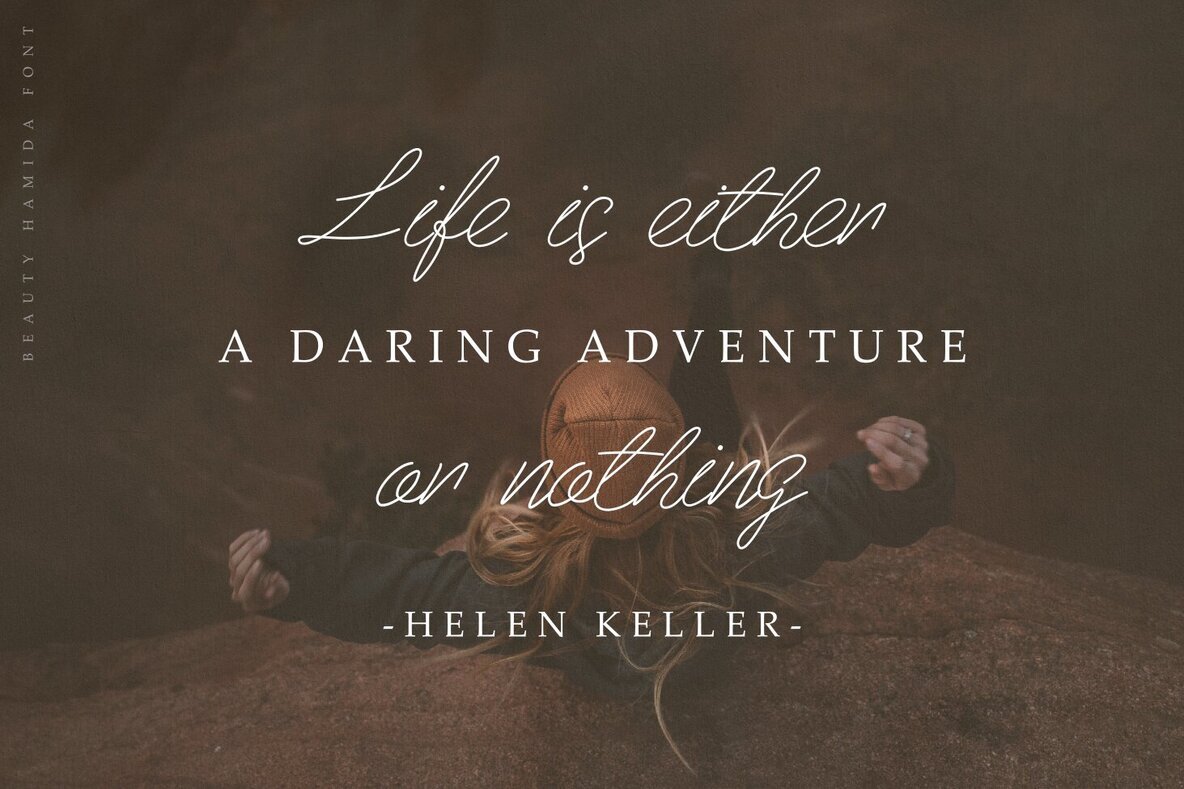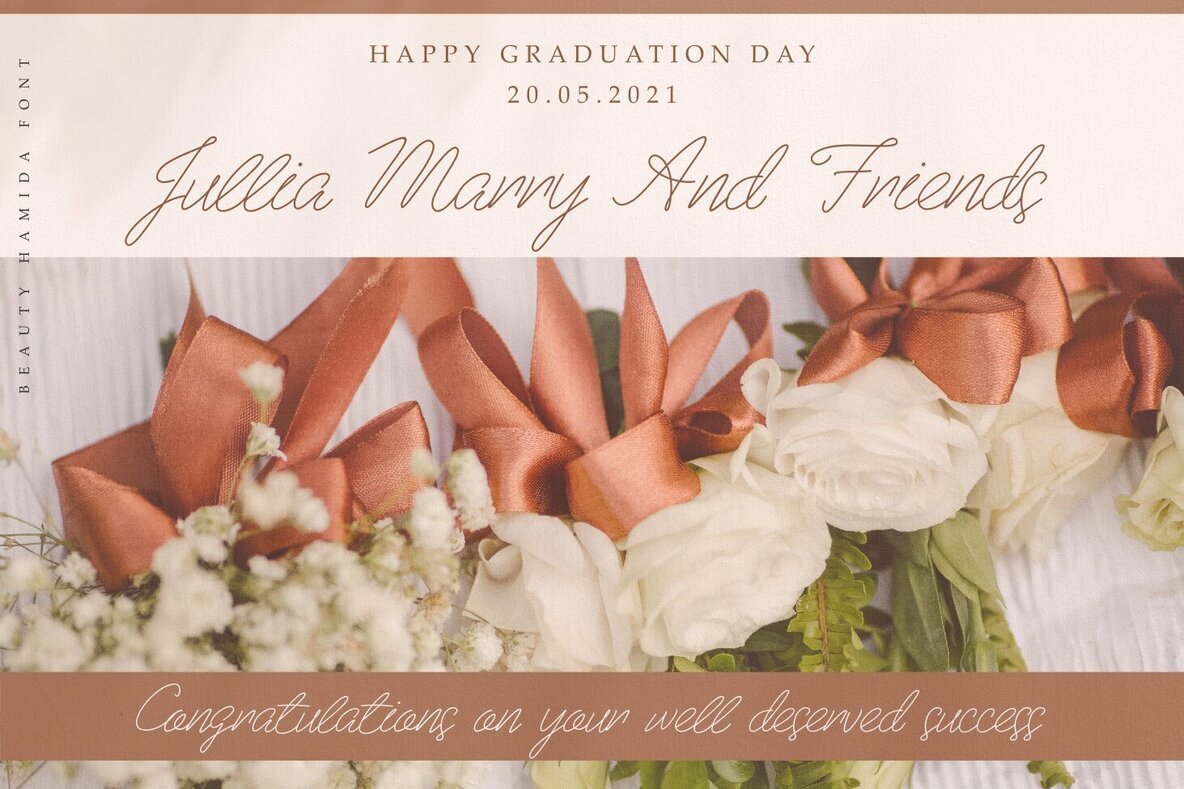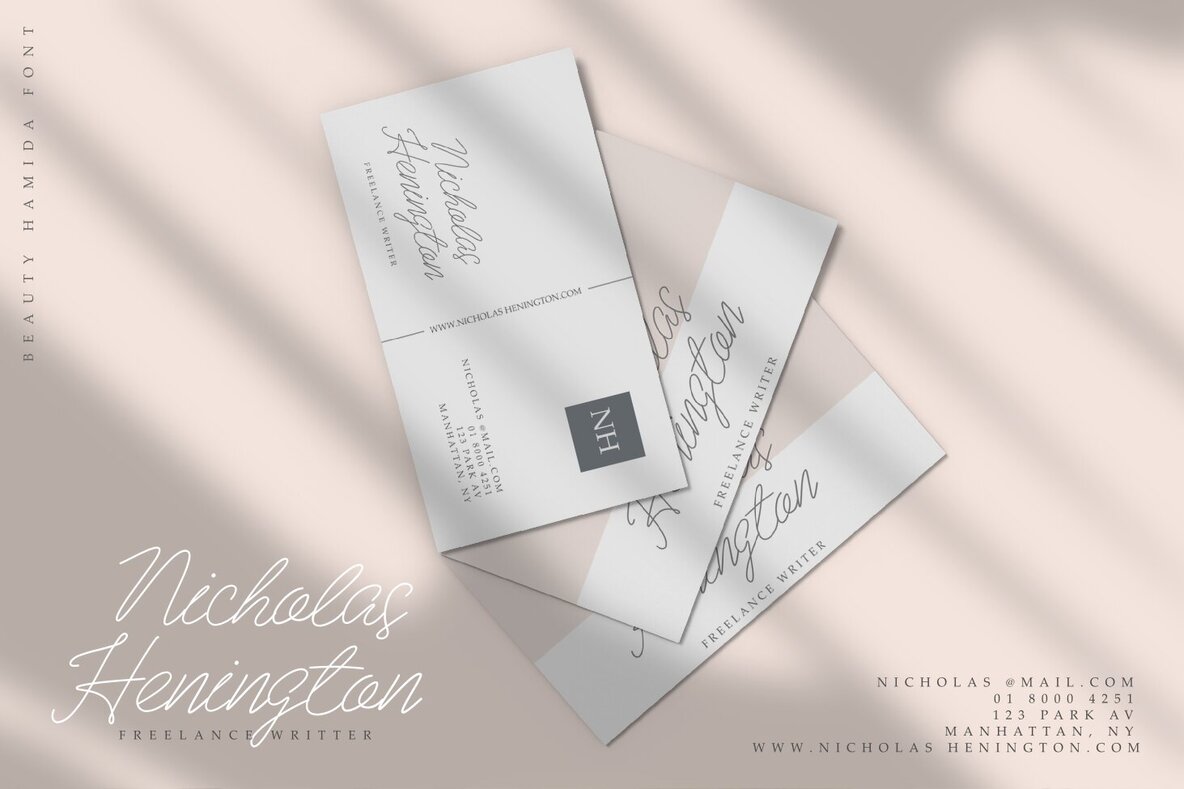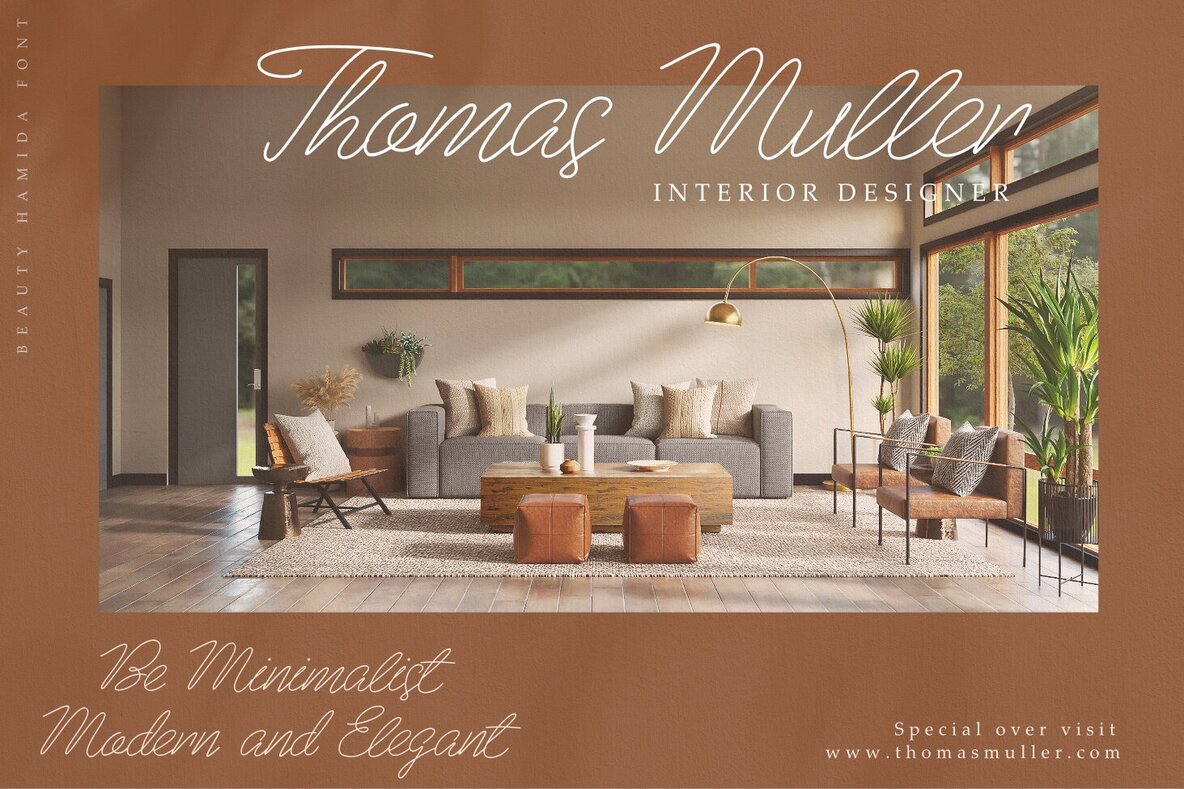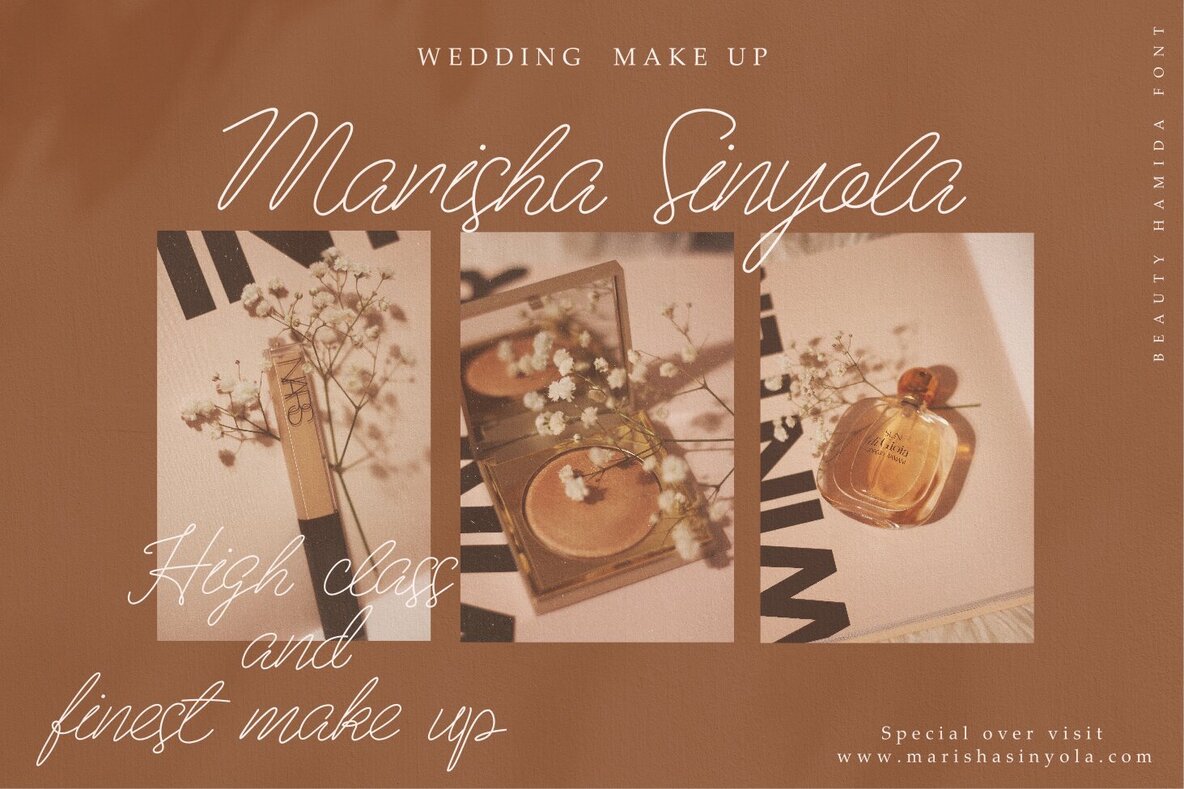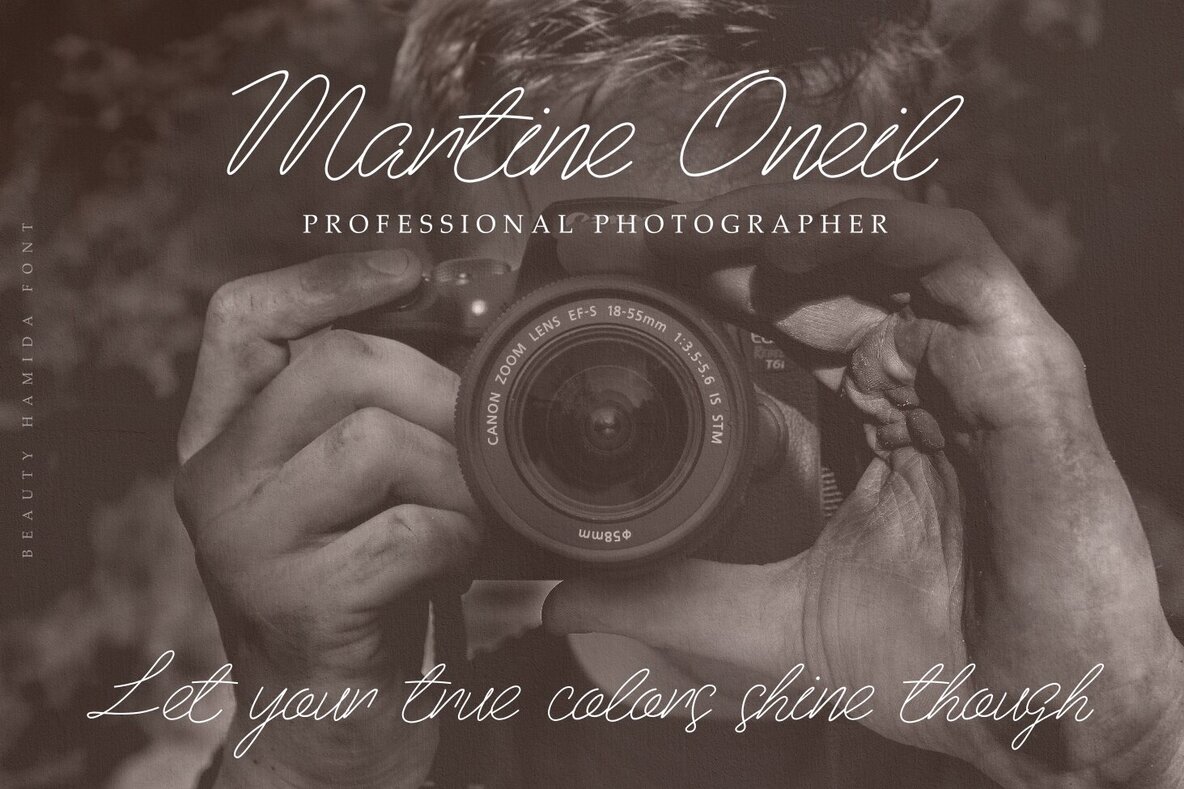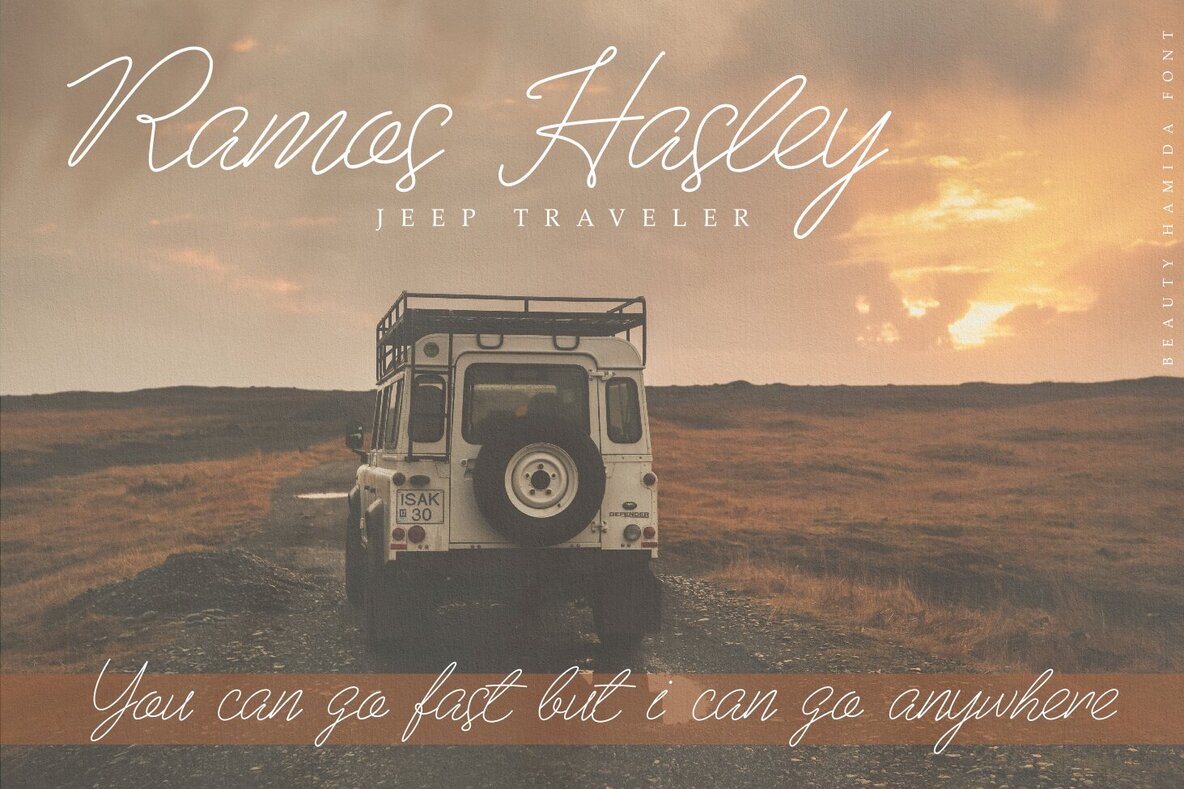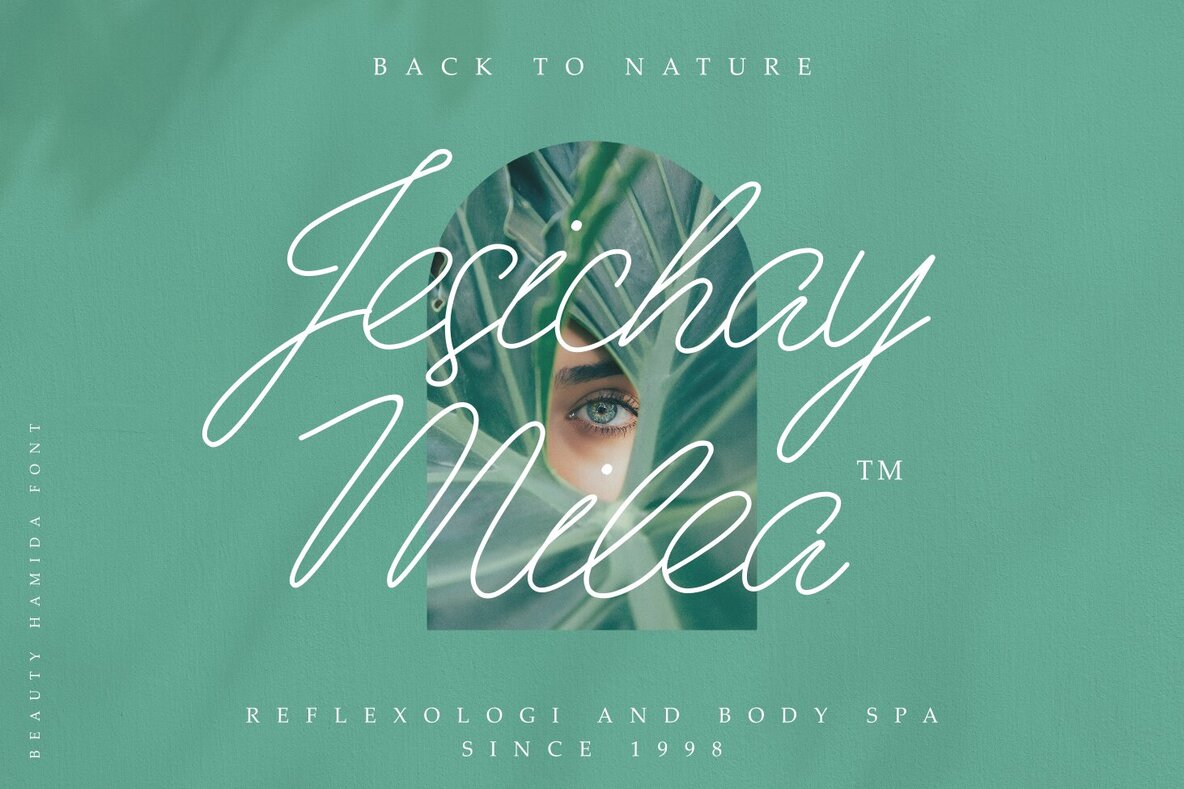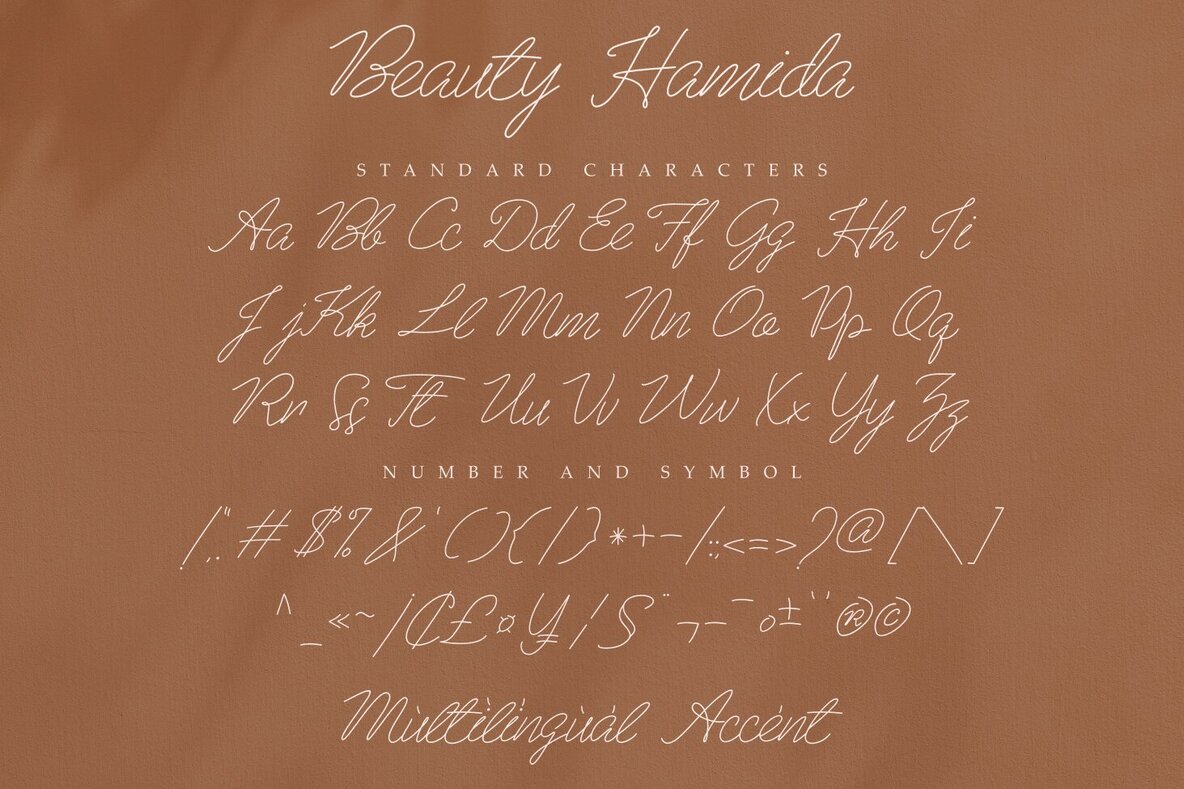
Beauty Hamida Font
Beauty Hamida
Beauty Hamida is a monoline script font designed to emulate the elegance and fluidity of a handwritten signature. This versatile font is ideal for personal branding and fits seamlessly across a wide range of applications. Beauty Hamida is suitable for an array of design needs, including: We hope you enjoy using Beauty Hamida. Feel free to share your thoughts or feedback. Thank you for choosing our font!Beauty Hamida: Monoline Script with Signature Flair
Perfect for Various Applications